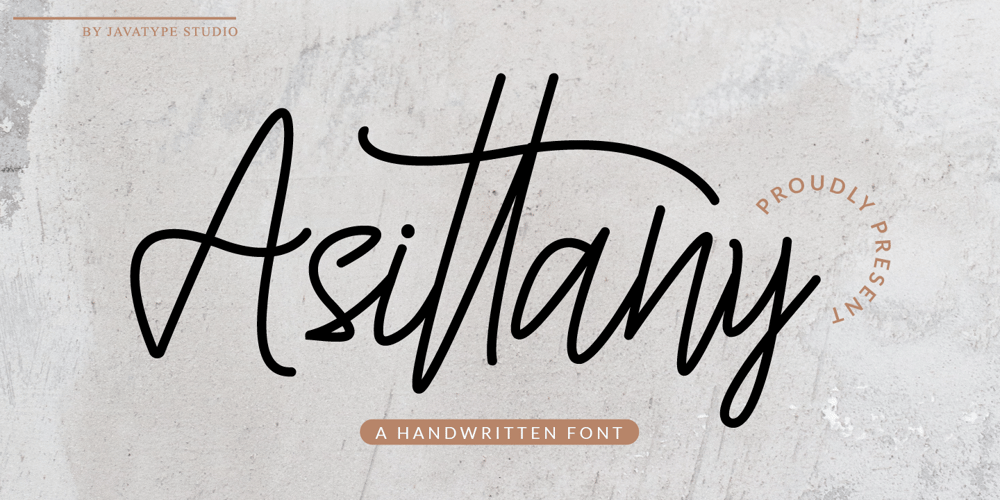
Asittany Script
Asittany Script font
Asittany Script Font Family was designed by Tio Yulianto and published by Javatypestd. Asittany Script contains 1 styles and family package options. Introducing Asittany Script is monoline script font which natural movement and elegant for signature style.Asittany Script is perfect for branding projects, logo, wedding designs, social media posts, advertisements, product packaging, product designs, label, photography, watermark, invitation, stationery and any projects that need handwriting taste.What’s Included :- Standard glyphs- Ligature- Works on PC & Mac- Simple installations- Accessible in the Adobe Illustrator, Adobe Photoshop, Adobe InDesign, even work on Microsoft Word.- PUA Encoded Characters – Fully accessible without additional design software.- Fonts include multilingual support